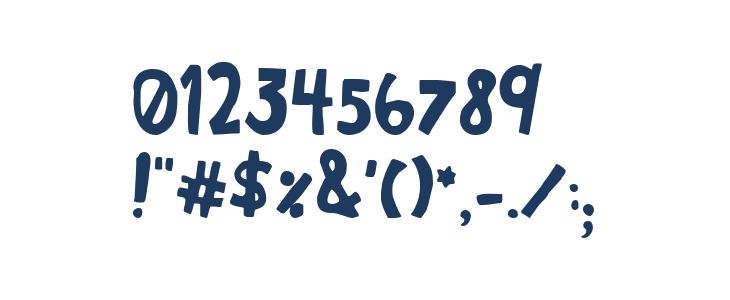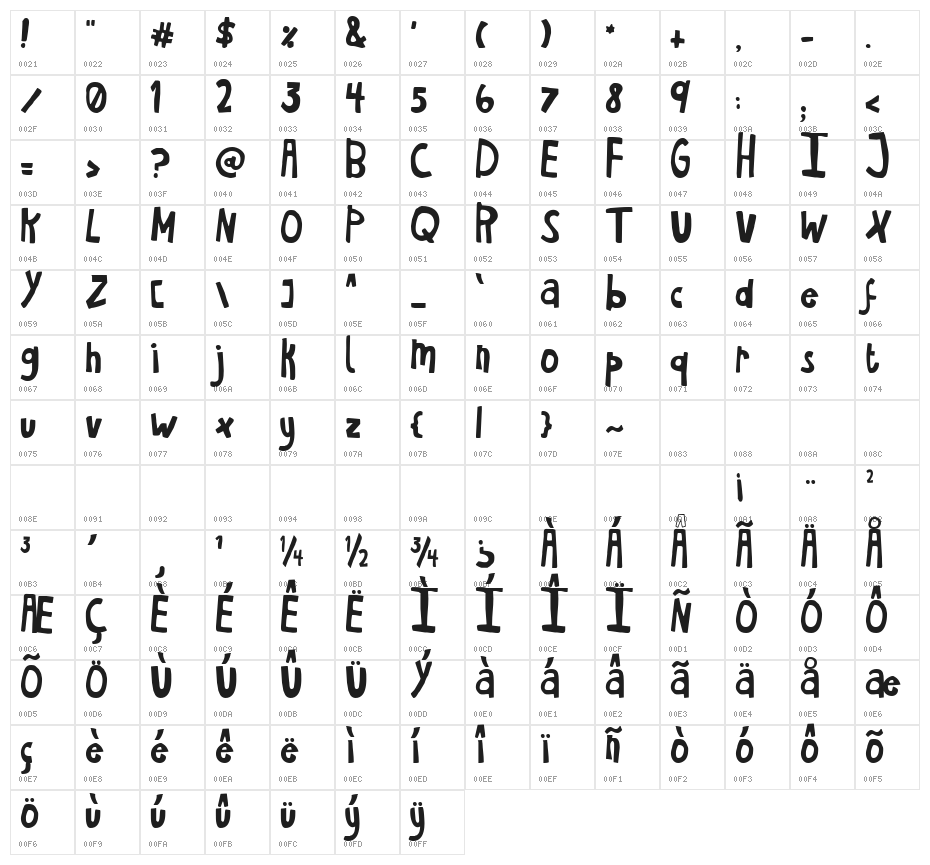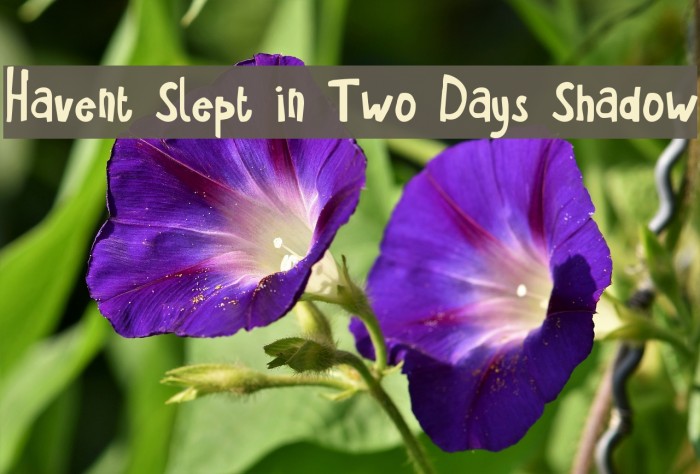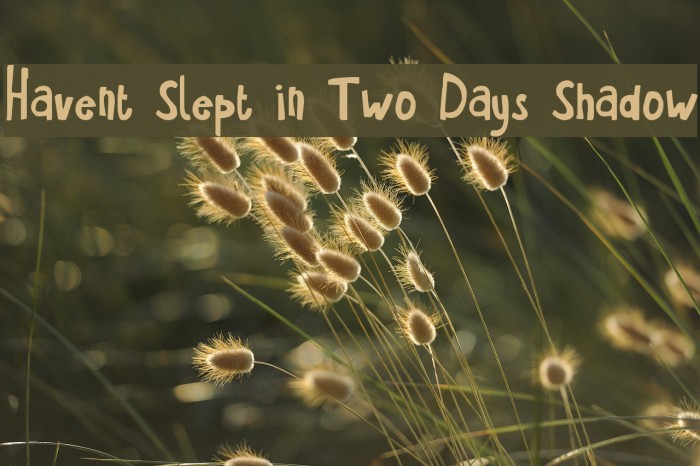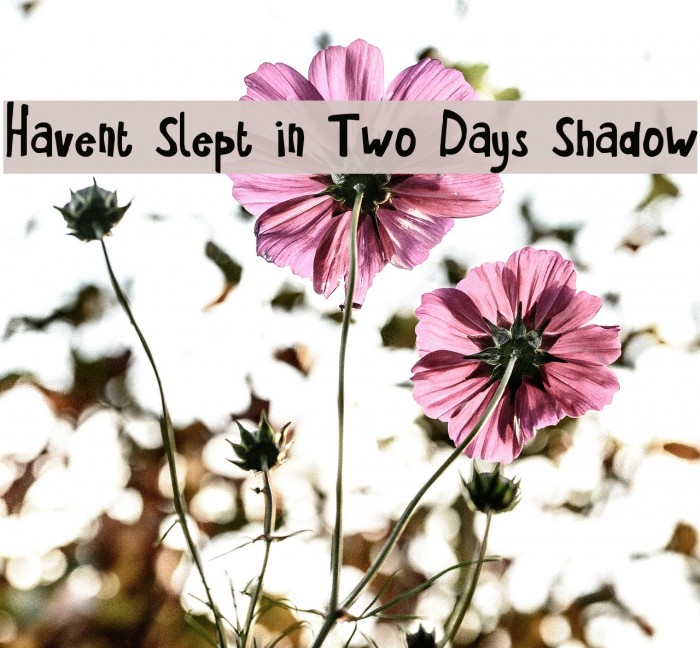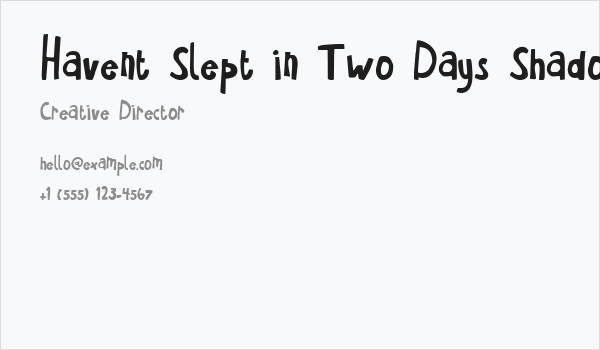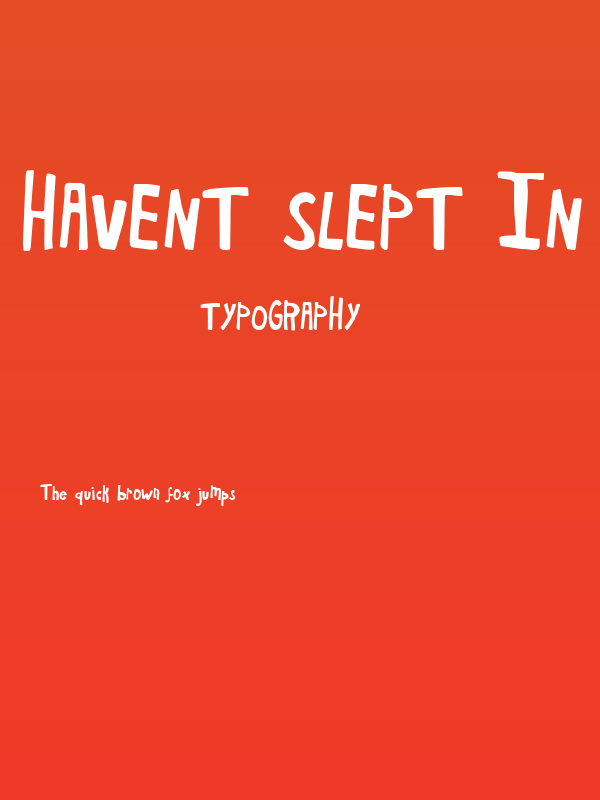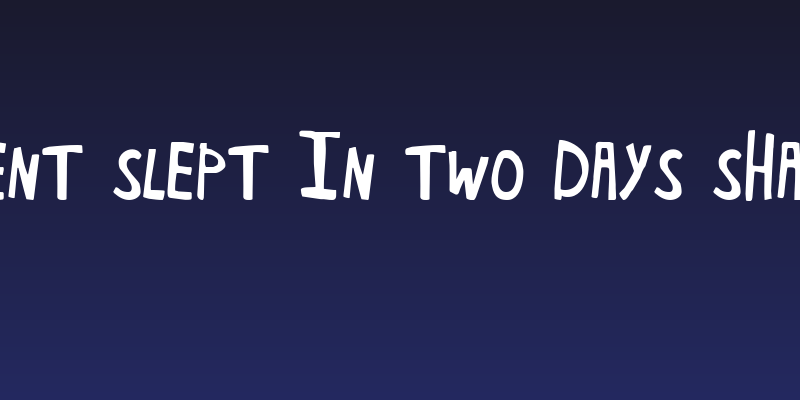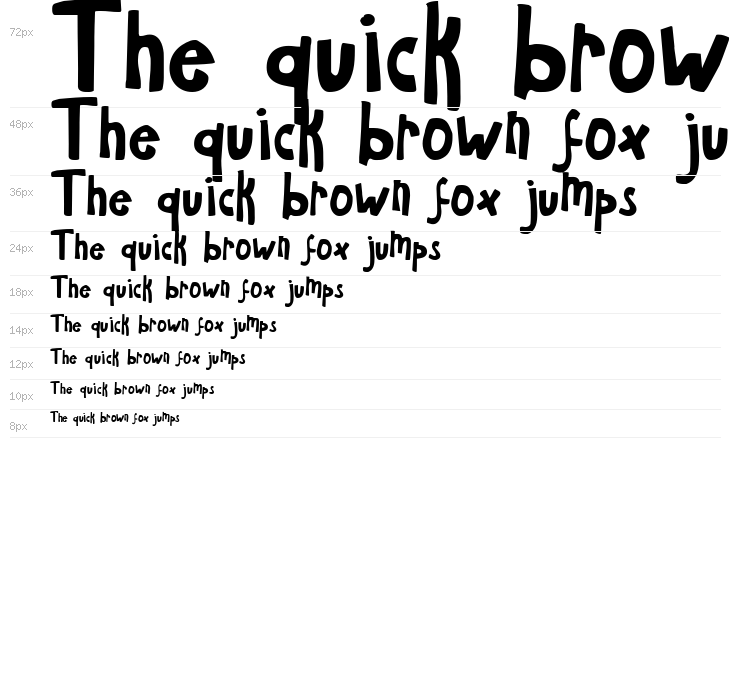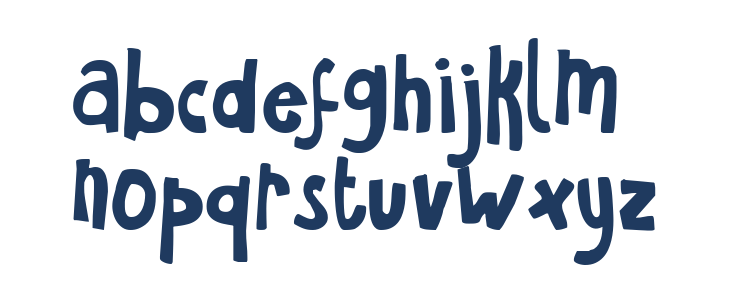
Havent Slept in Two Days Shadow Font
Havent Slept in Two Days Shadow Description
This font features a playful and quirky design with irregular, hand-drawn characters that convey a sense of spontaneity and creativity. The letters are bold and slightly uneven, giving them a casual, informal appearance. The uppercase and lowercase letters maintain a consistent style, with rounded edges and varying stroke thicknesses that add to the font's charm. The numerals and special characters follow the same whimsical design, making the font suitable for projects that require a fun and lively touch. Its unique style makes it stand out, perfect for capturing attention in creative and artistic contexts.
| Proposed Projects | Ideal for children's books, playful branding, creative posters, and informal invitations. |